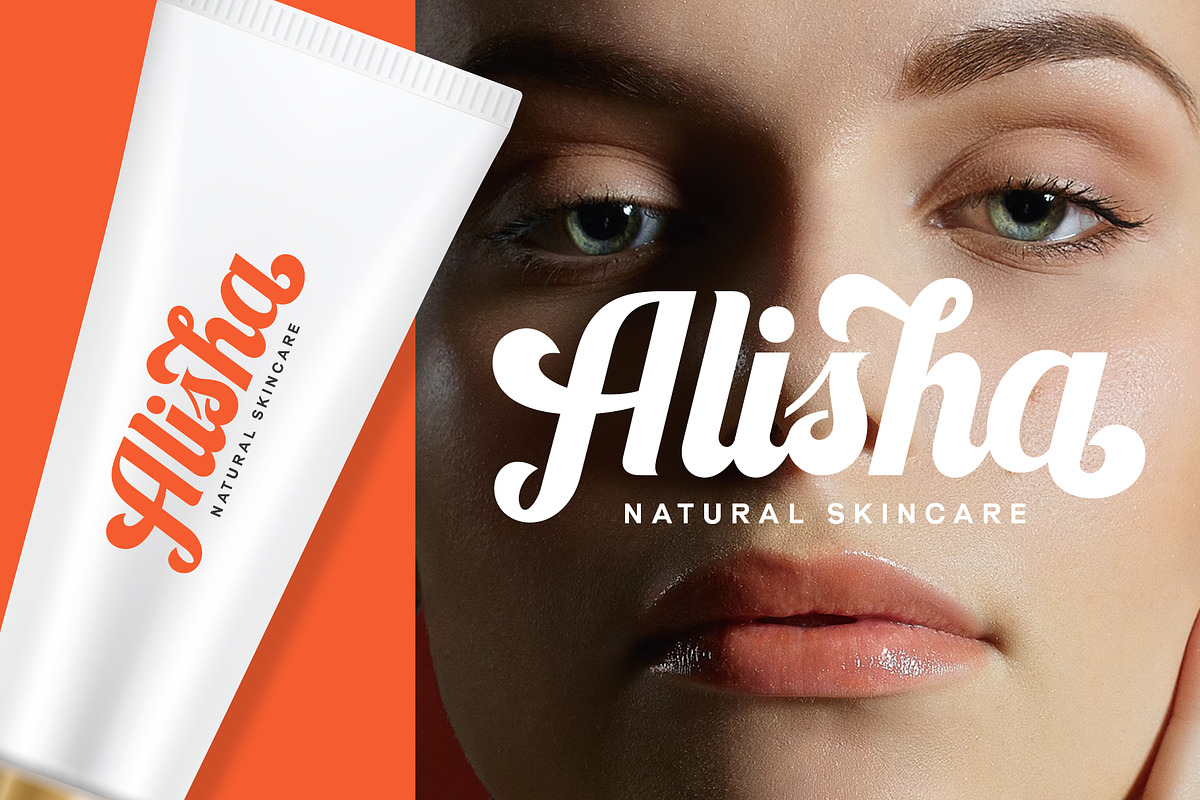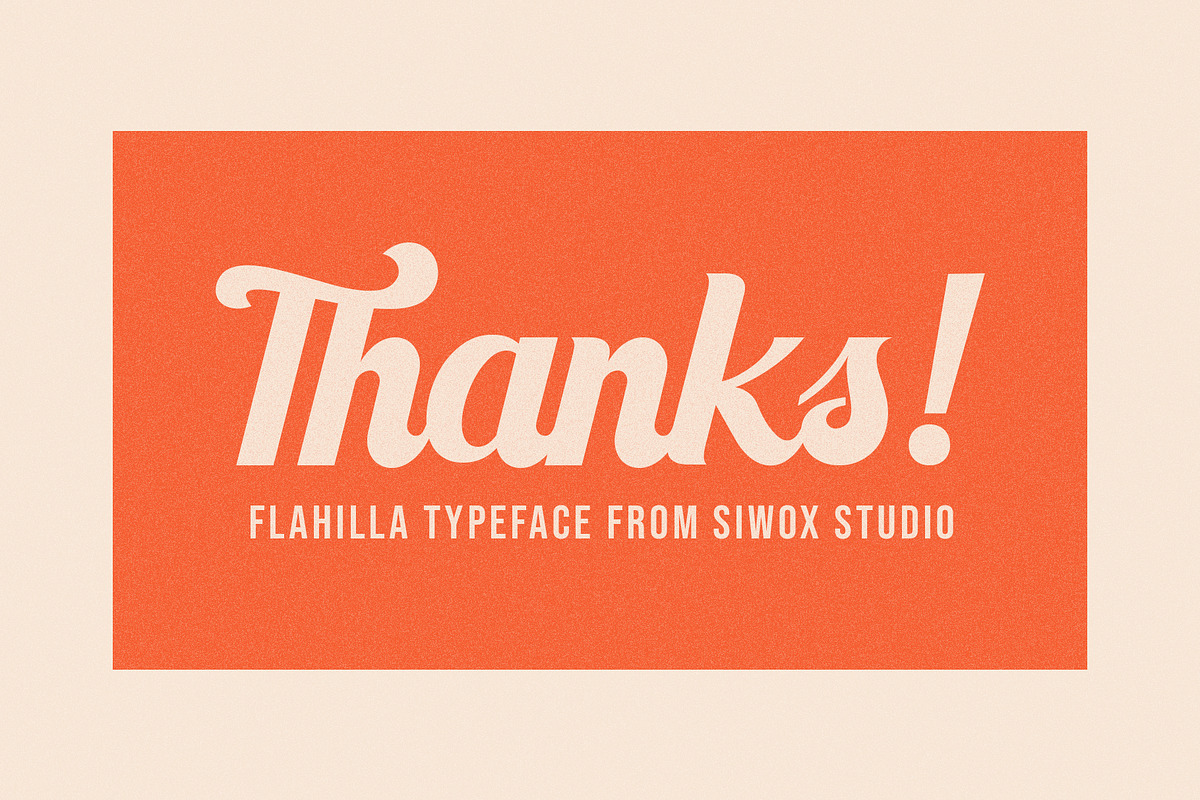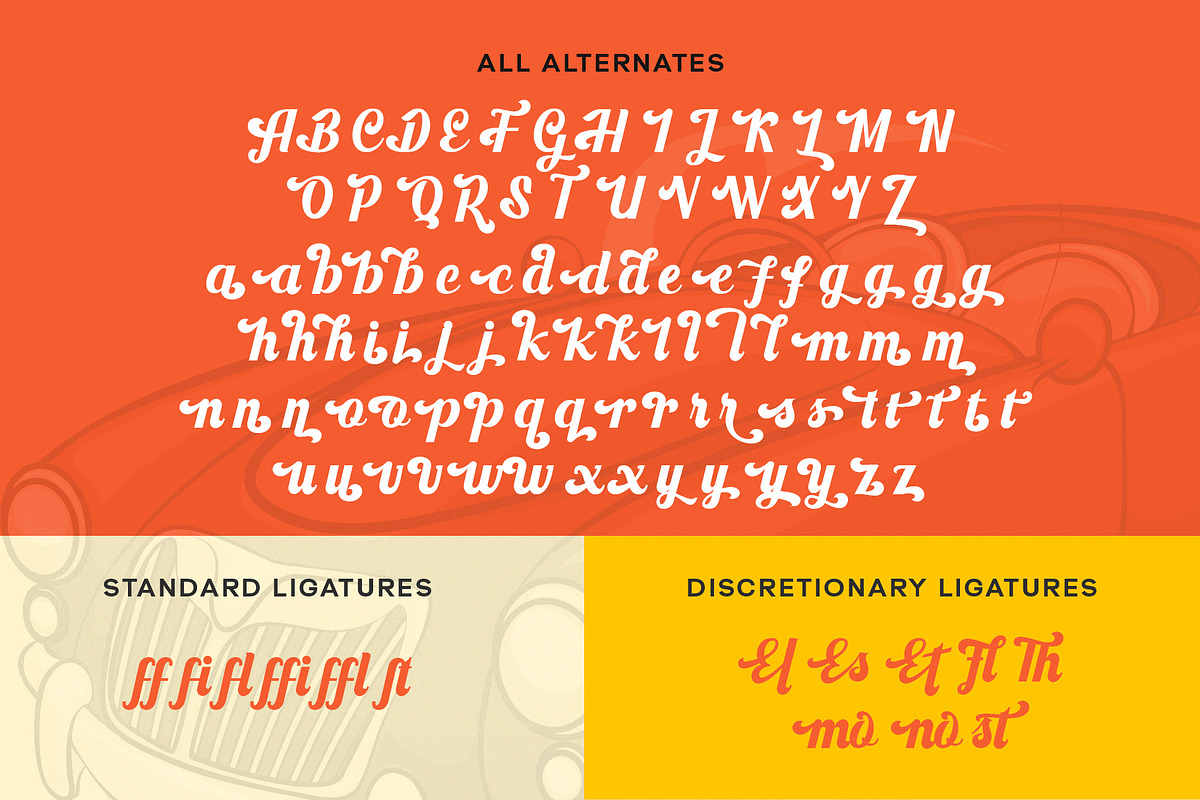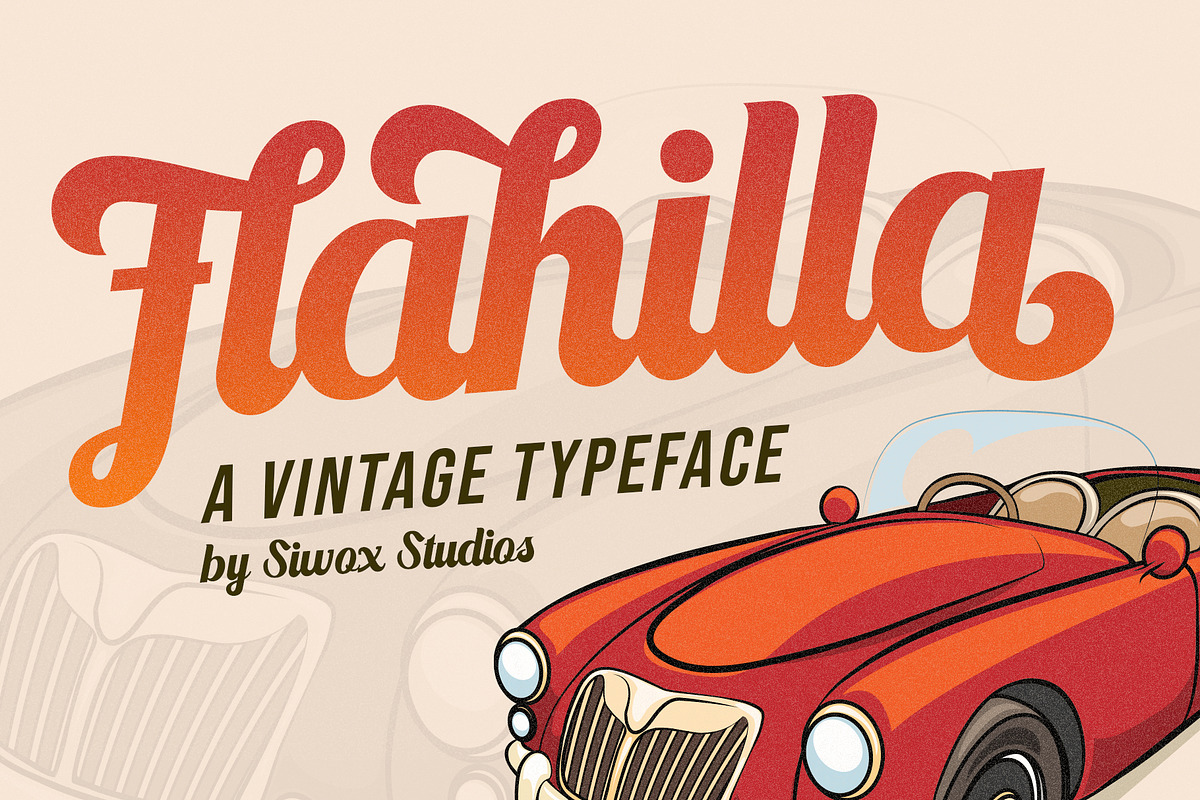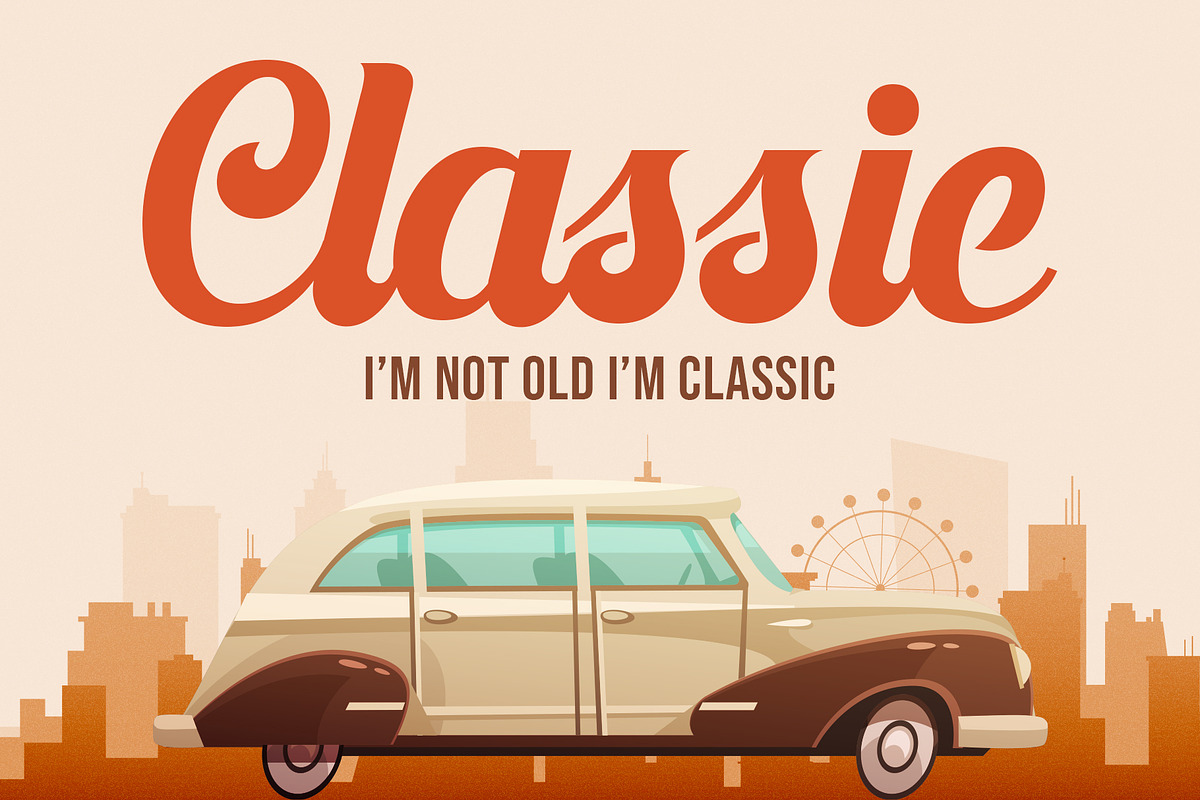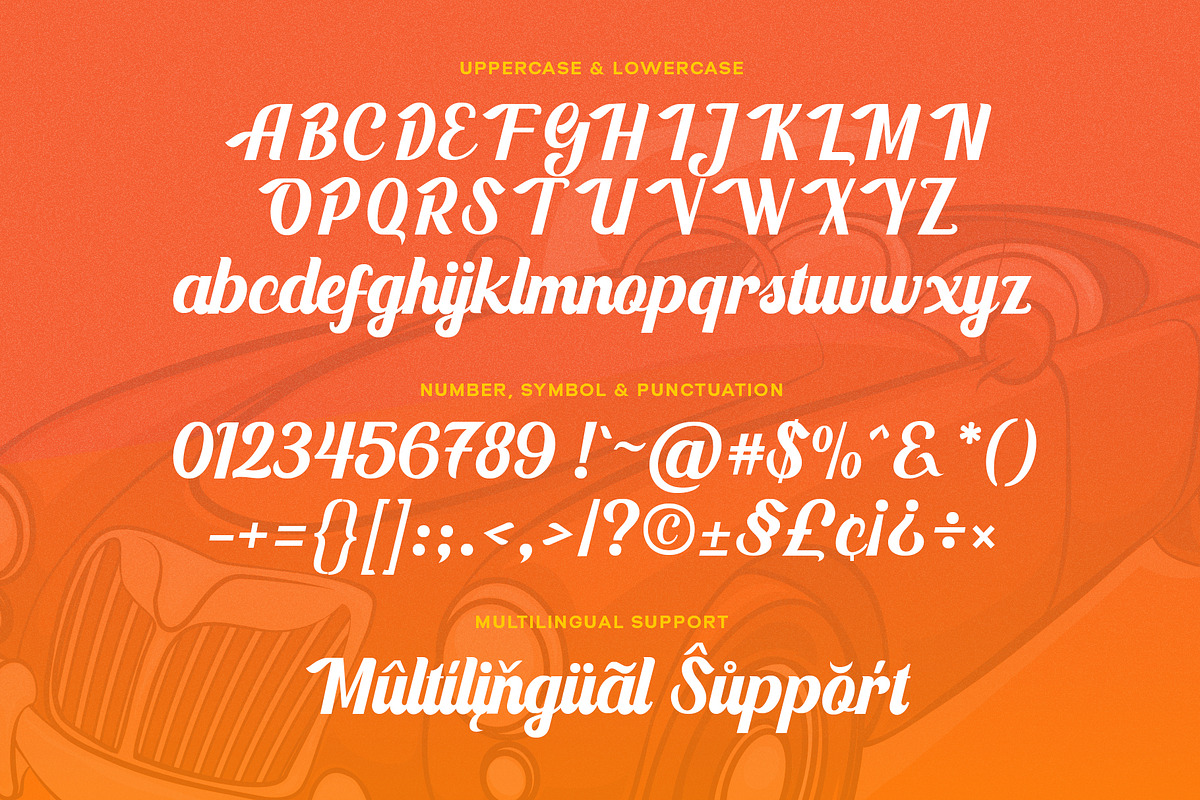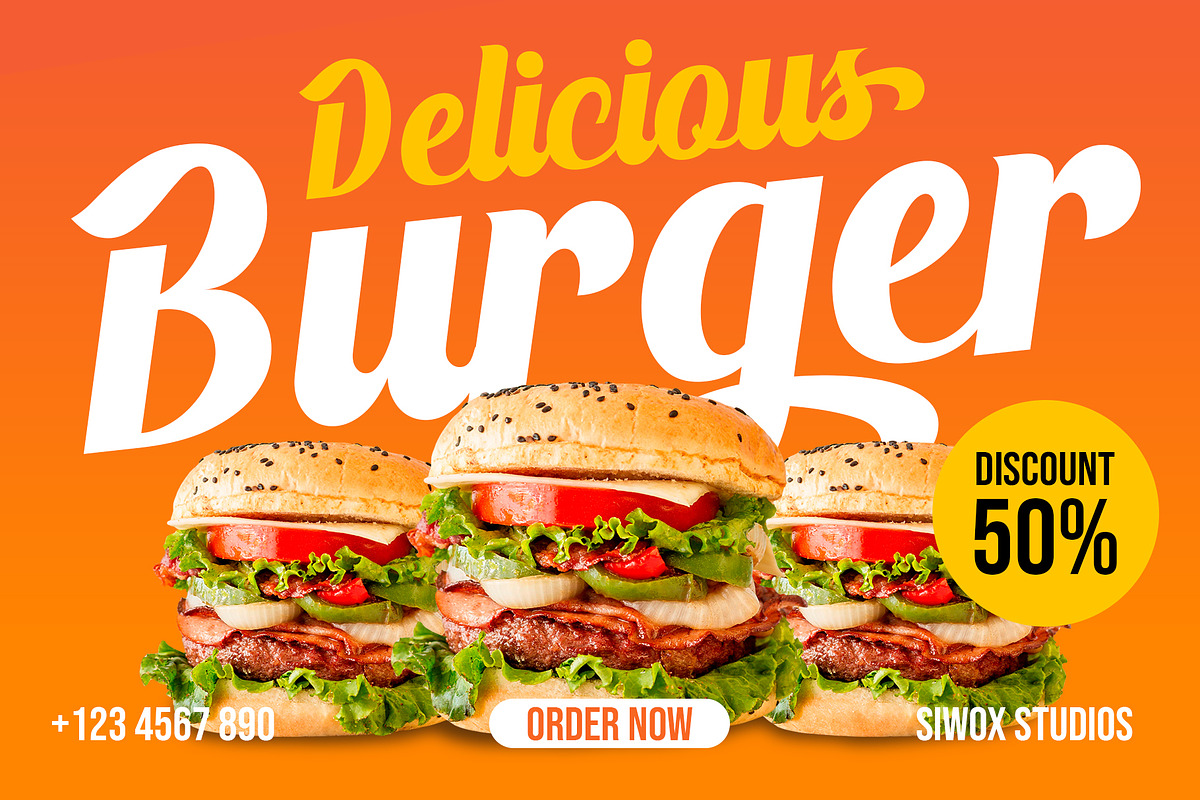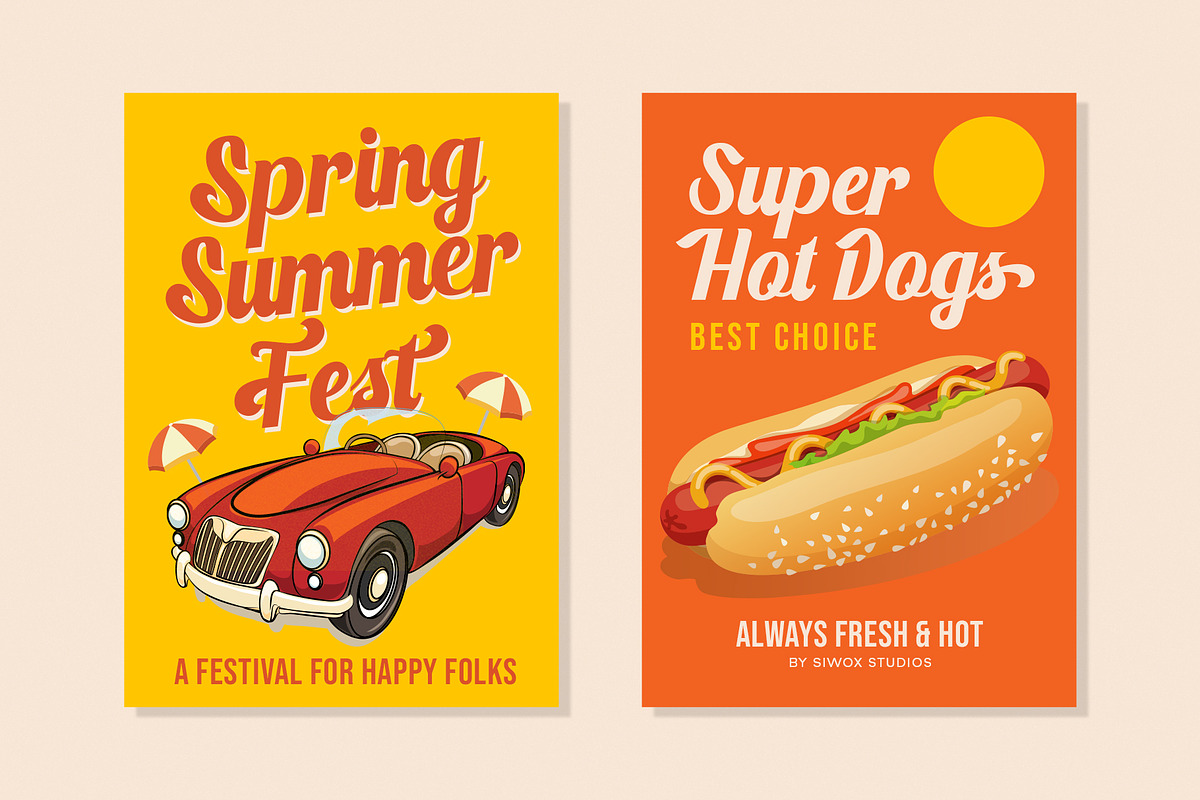
Flahilla - Bold Vintage Script
Flahilla is a bold vintage script font inspired by bar signs, hotel signs, barbershop signs, etc. Flahilla has a classic yet elegant feel, suitable for both modern and classic design projects. Flahilla comes with beautiful alternates and ligatures. Flahilla is perfect for designing badges, labels, t-shirts, branding, logos, posters, book covers, packaging, and more.
- Number, Symbol & Punctuation
- Stylistic Set
MULTILINGUAL ACCENT
ŽžŠŒšŸÀÁÂÃÄÅÆÇÈÉÊËÌÍÎÏÐÑÒÓÔÕÖØÙÚÛÜÝßàáâãäåæçèéêëìíîïðñòóôõöøùúûüýÿ